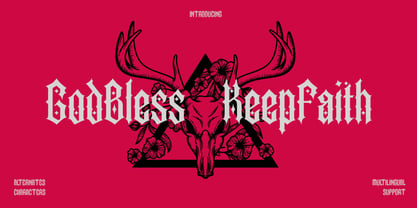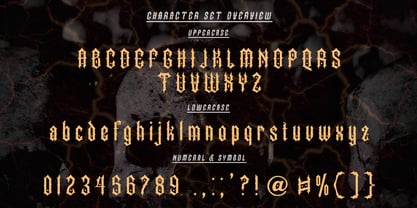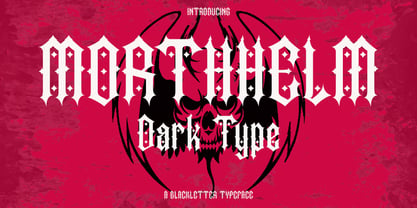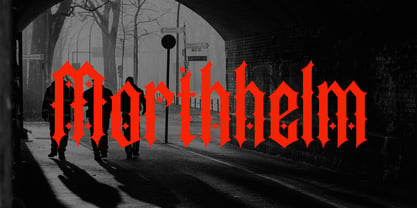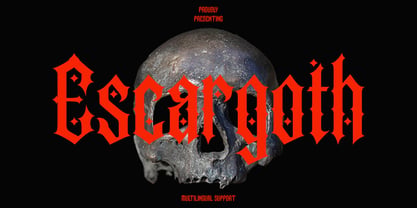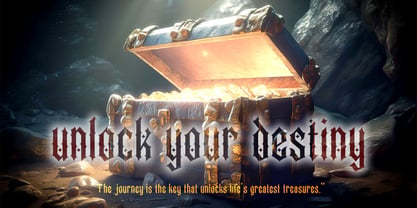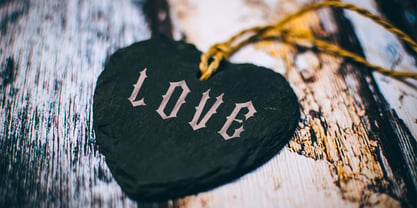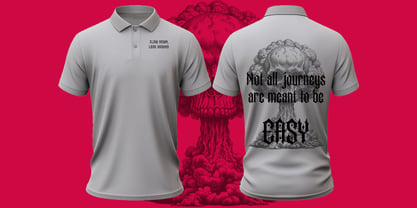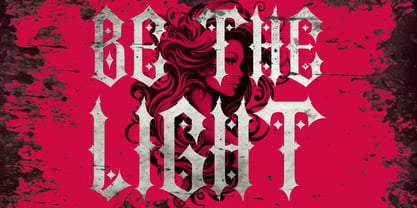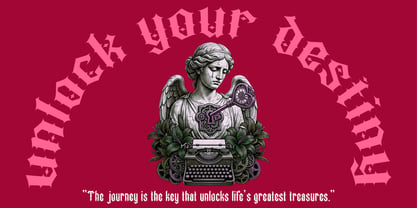
Morthhelm
The Morthhelm Font Family was designed by Nur Hasan and published by Reyrey Blue Std. Morthhelm contains 2 styles and family package options. More about this family
Morthhelm is a bold blackletter display font inspired by dark medieval lettering, gothic aesthetics, and heavy metal typography. Its sharp, dramatic forms and intricate details create a powerful and mysterious visual style, perfect for designs that demand a strong and rebellious presence.
With its distinctive gothic character, Morthhelm works beautifully for metal band logos, album covers, streetwear, apparel, tattoo designs, posters, branding, event graphics, book covers, labels, and dark-themed artwork.
Whether you're creating an intense band identity, an edgy fashion graphic, or a striking headline, Morthhelm brings a raw medieval atmosphere with a modern underground attitude.
Morthhelm is ideal for:
• Blackletter & Gothic Branding
• Heavy Metal & Rock Artwork
• Band Logos & Album Covers
• Streetwear & Apparel Design
• Tattoo & Merchandise Design
• Posters & Flyers
• Book & Magazine Covers
• Dark Fantasy & Medieval Projects
• Labels, Packaging & Badges
• Social Media Graphics